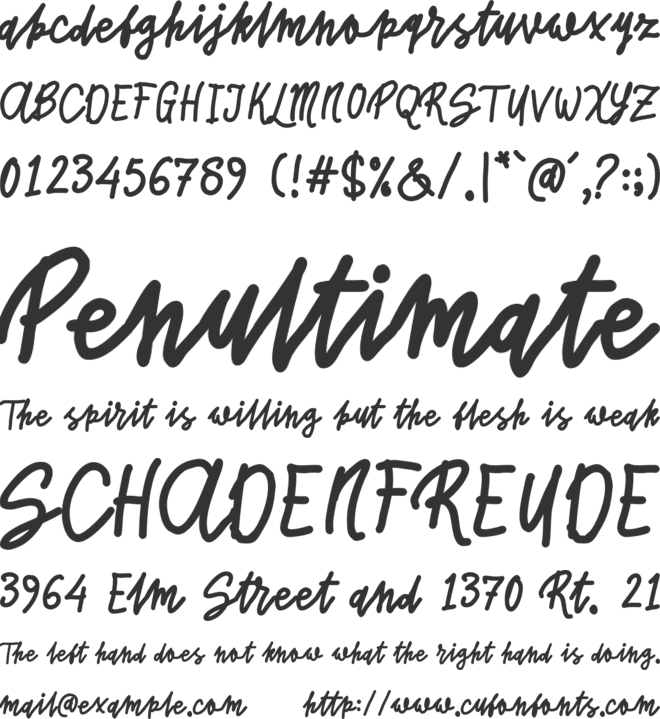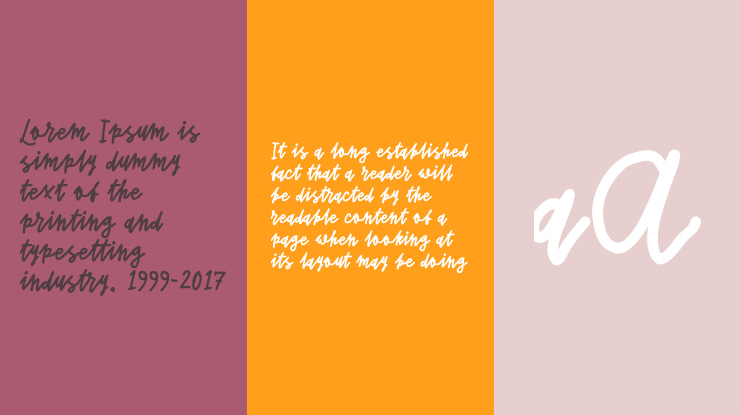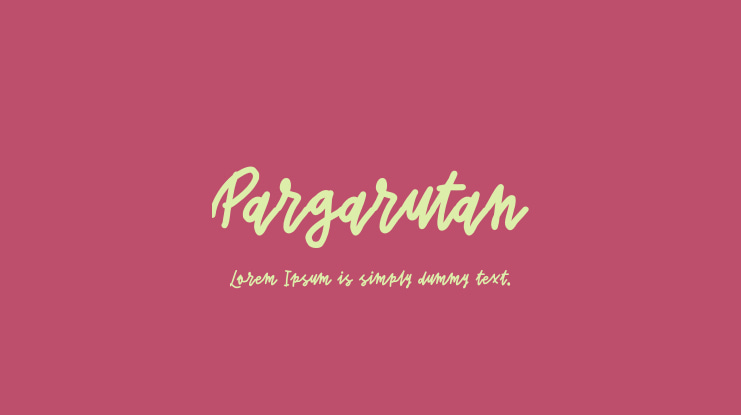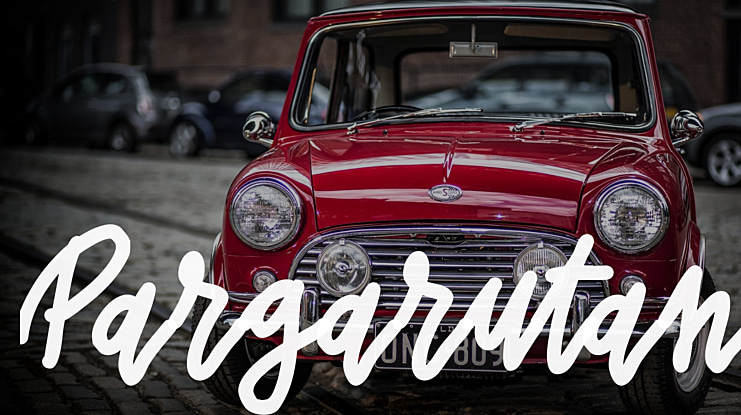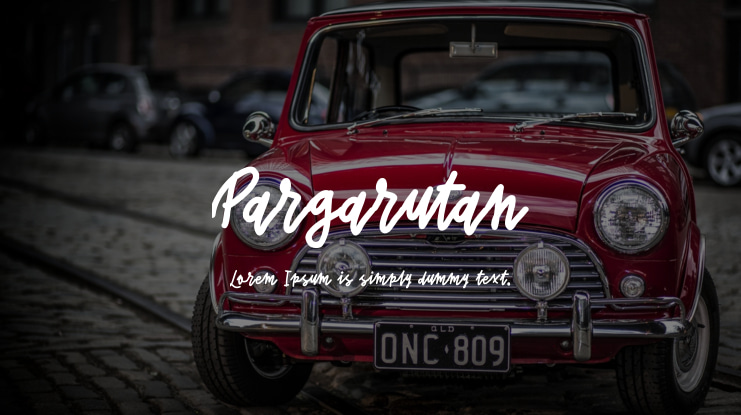
Pargarutan Font
Introducing a new signature typeface, named as Pargarutan, the most beautiful village in the world. This font, will nice for logo, title, subtitle, or text, for wedding invitation, t-shirt, mug, flyer, book, flyer, etc.
Font feature:
- Contain 290 glyphs.
- Supported to Latin and Eastern Europe characters
- PUA encoded font